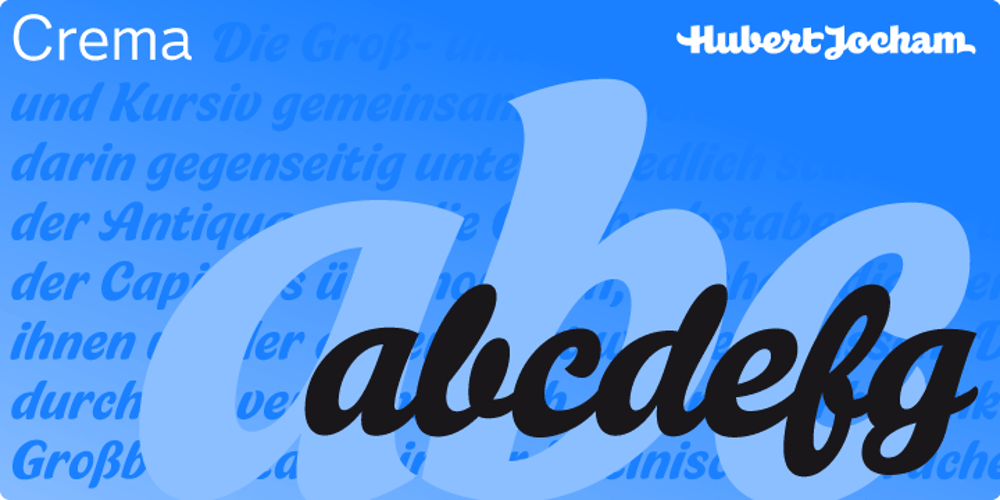
Crema Font Family was designed by Hubert Jocham and published by Hubert Jocham Type. Crema contains 3 styles and family package options. With packaging in the back of my mind I created Crema only in one specific weight. But there are 3 styles from the connected Forte to the quiet Piano. You can see Schoko the other packaging scripts I designed everywhere in the supermarkets. And I am looking forward to see Crema as well.